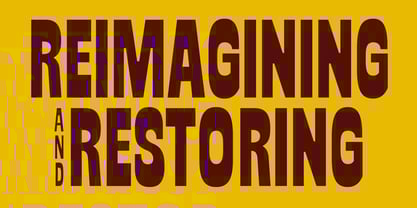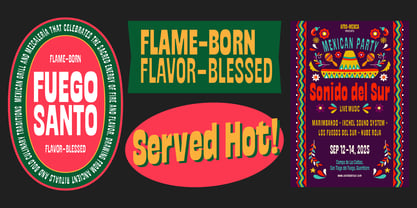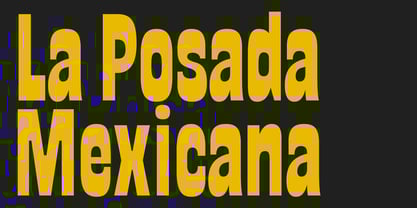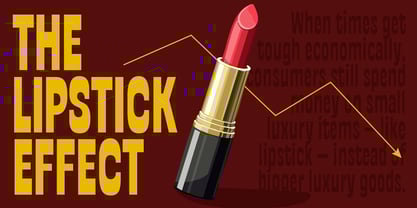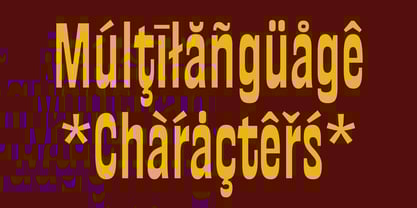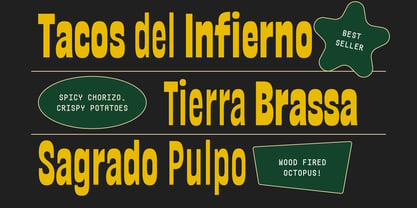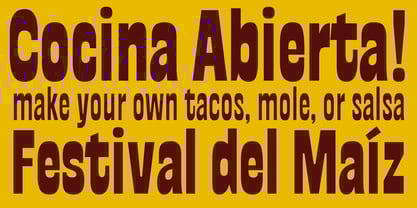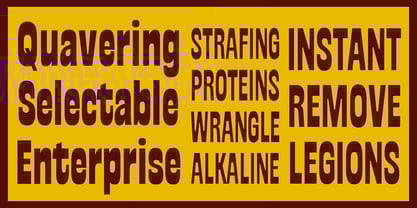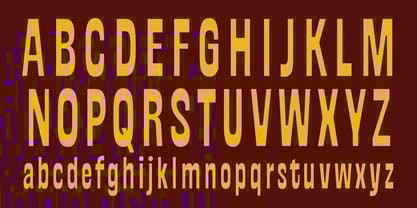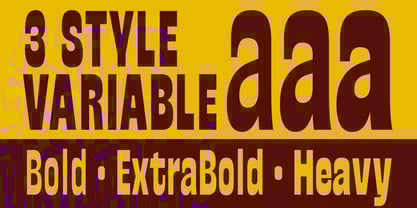
GW Quetaro Pro
by Goodwheel Studio
The GW Quetaro Pro Font Family was designed by Ilham Herry, Adam Fathoni Haris and published by Goodwheel Studio. GW Quetaro Pro contains 4 styles and family package options. More about this family
GW Quetaro Pro is a condensed display font with a strong horizontal emphasis. Its sleek and modern design makes it perfect for visual projects that need to grab attention instantly. With bold yet elegant characters, this typeface is ideal for headlines, posters, branding, and any design that demands a strong and professional impression at first glance.
Designers: Ilham Herry, Adam Fathoni Haris
Foundry: Goodwheel Studio